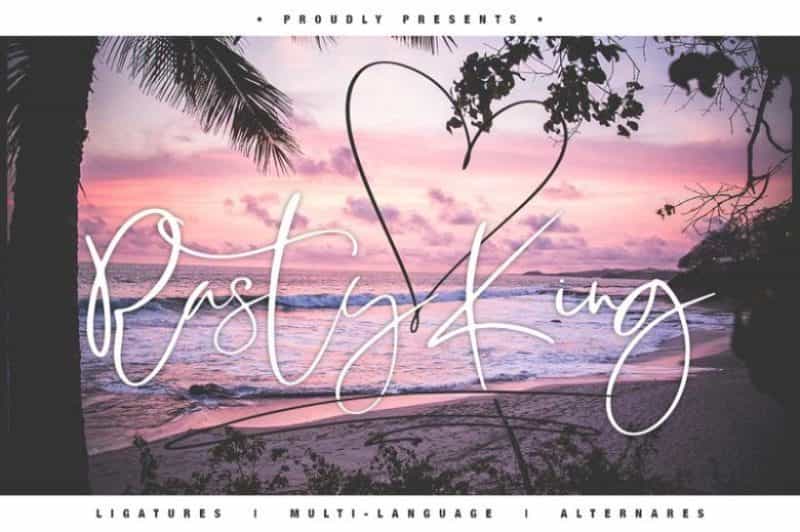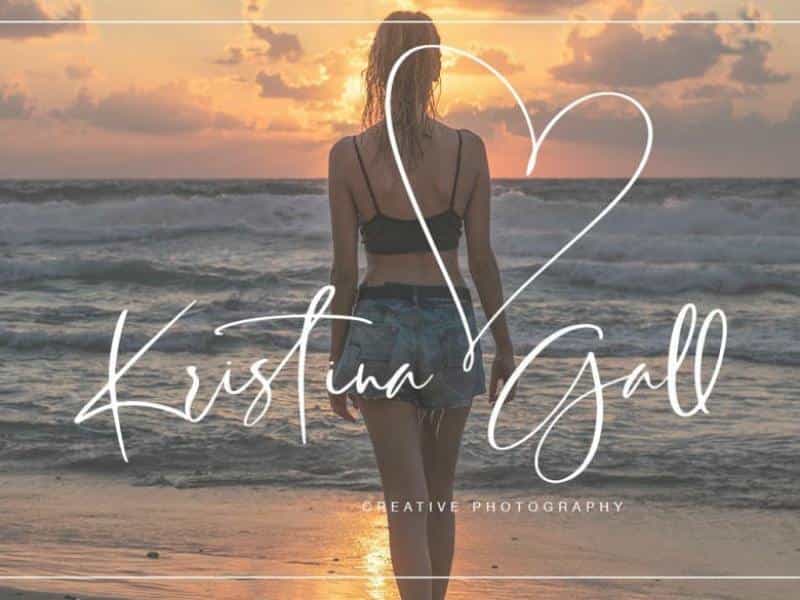
Rasty King – Fresh handmade calligraphy font. Very suitable for greeting cards, branding materials, business cards, quotes, posters, and more!This font are perfect for wedding postcard. Or you can create perfect and unique design of your logo, blog, stationery, marketing, magazines and more.